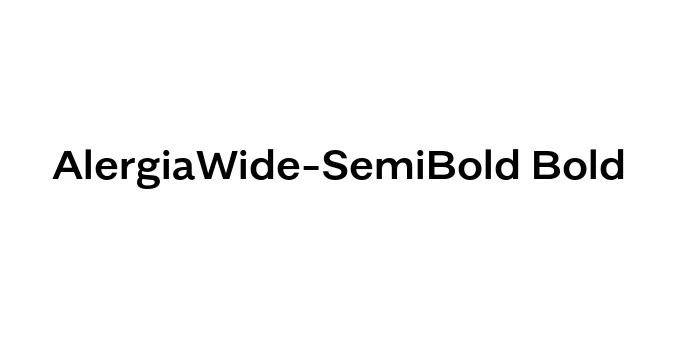
AlergiaWide-SemiBold Bold
Designed by Mateusz Machalski
AlergiaWide-SemiBold Bold is a standout weight within the Alergia typeface family, a comprehensive hybrid system developed by the Polish designer Mateusz Machalski. This font represents a unique blend of geometric sans-serif foundations and high-contrast editorial aesthetics. The Wide variant is specifically engineered to command space, offering a modern, expansive feel that bridges the gap between traditional grotesque stability and contemporary fashion-forward design.
Released through the Borutta Group, Alergia was built to be versatile across diverse media platforms. The SemiBold Bold weight provides a robust visual impact, featuring meticulous ink traps and balanced proportions that maintain clarity even in complex layouts. It is an excellent choice for designers seeking a typeface that feels both architecturally sound and artistically expressive, making it a favorite for high-end branding and editorial projects.
AlergiaWide-SemiBold Bold Best Uses
Ideal for creating strong, recognizable logos and brand identities.
Perfect for high-impact titles in magazines, posters, and web banners.
Gives product containers a premium, contemporary, and architectural look.
Grabs attention in digital and print advertisements with its wide, bold stance.